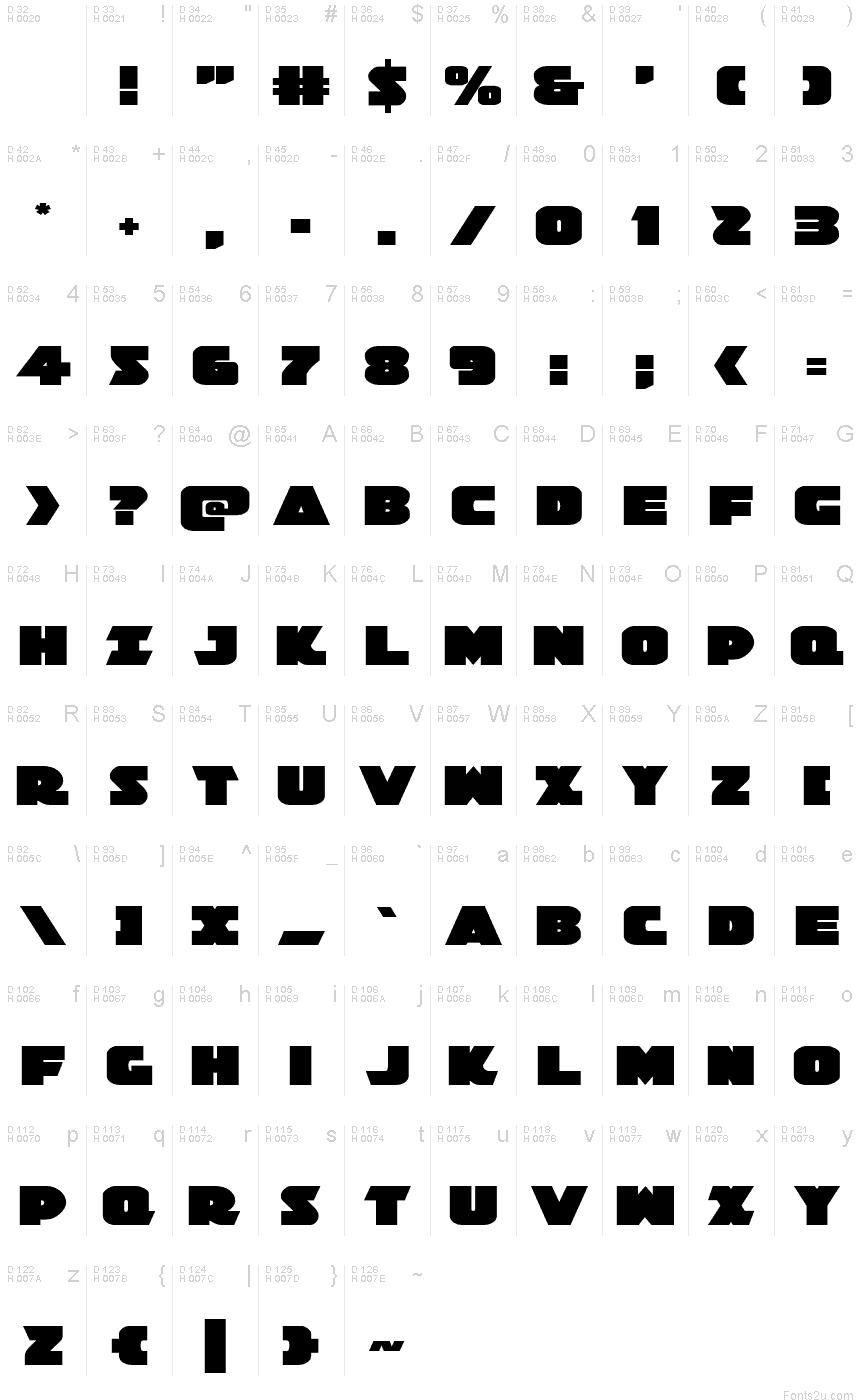
Jedi Special Forces Expanded by Iconian Fonts is a free futuristic display font with an extremely wide, heavy silhouette. Its geometric capitals use sharp wedges, clipped corners, and tiny interior openings to create a dense, armored look.
Entertainment graphics are its clearest setting, especially game title cards and science fiction posters. The same forceful construction can give merchandise and event signage the look of a squad insignia. It best matches space opera, military science fiction, and futuristic action.
Jedi Special Forces Expanded